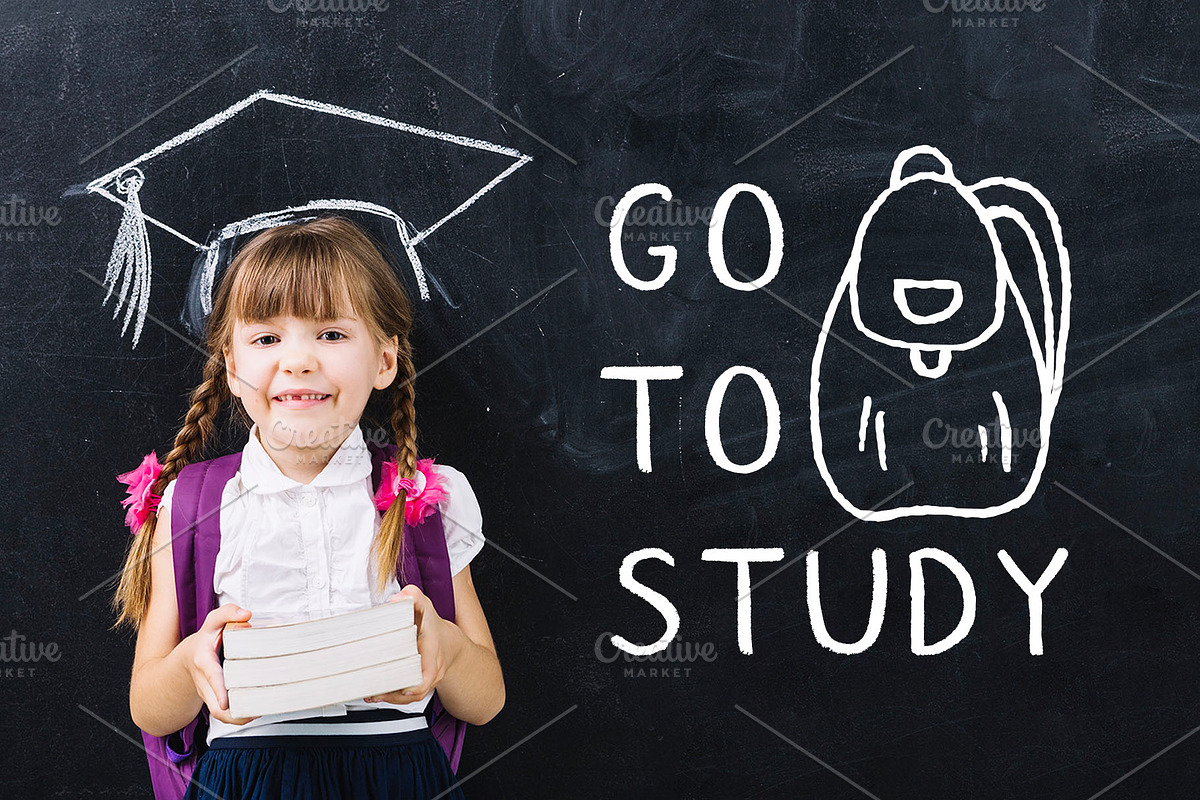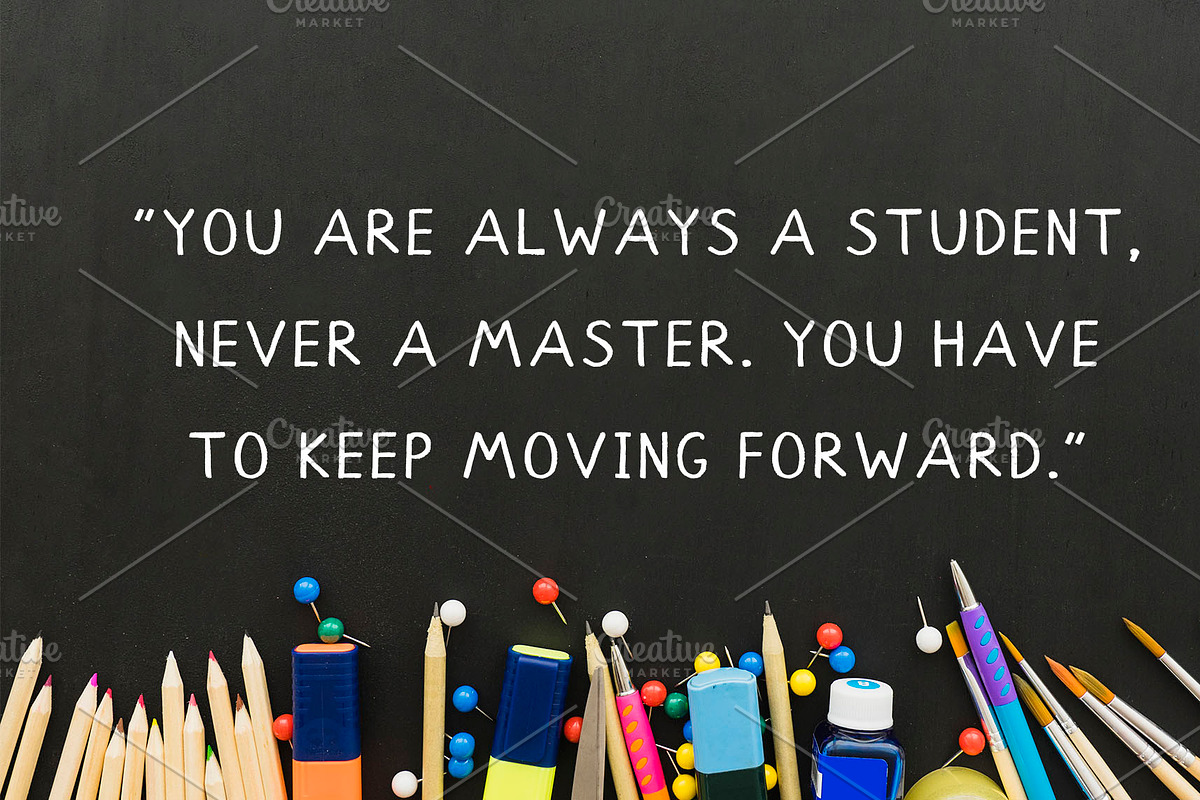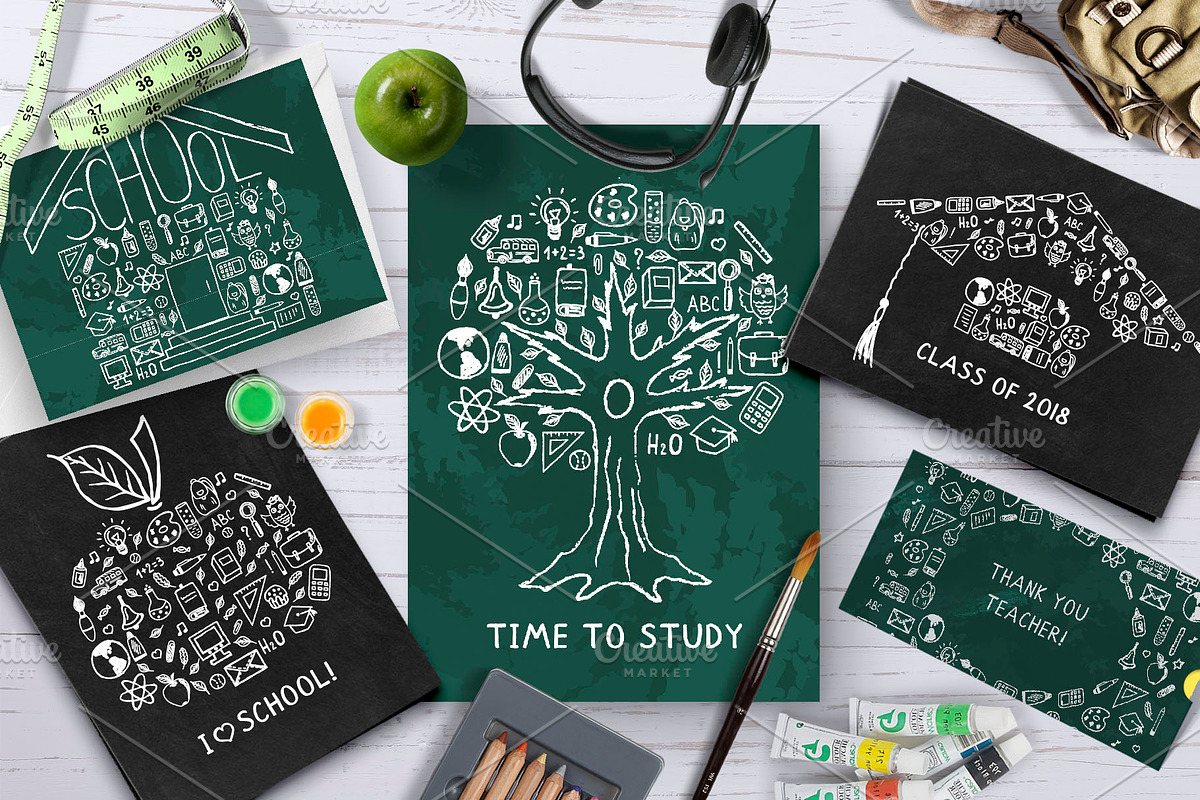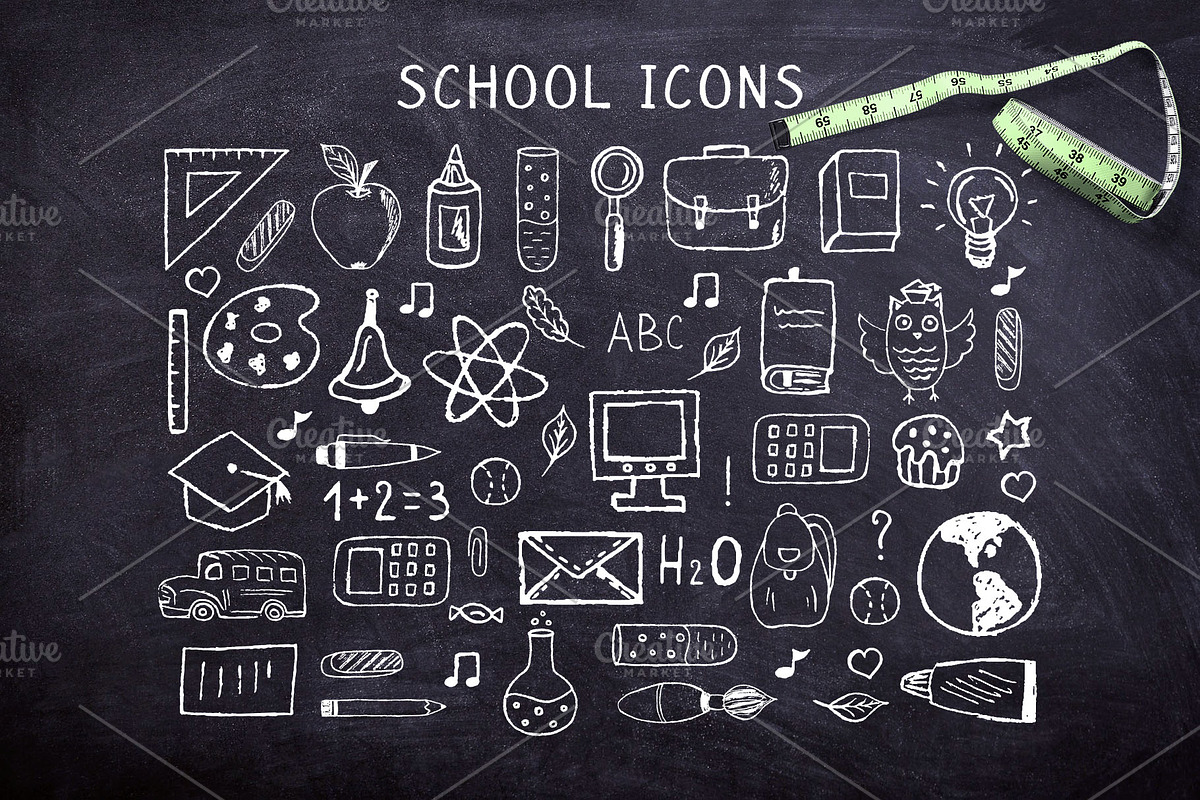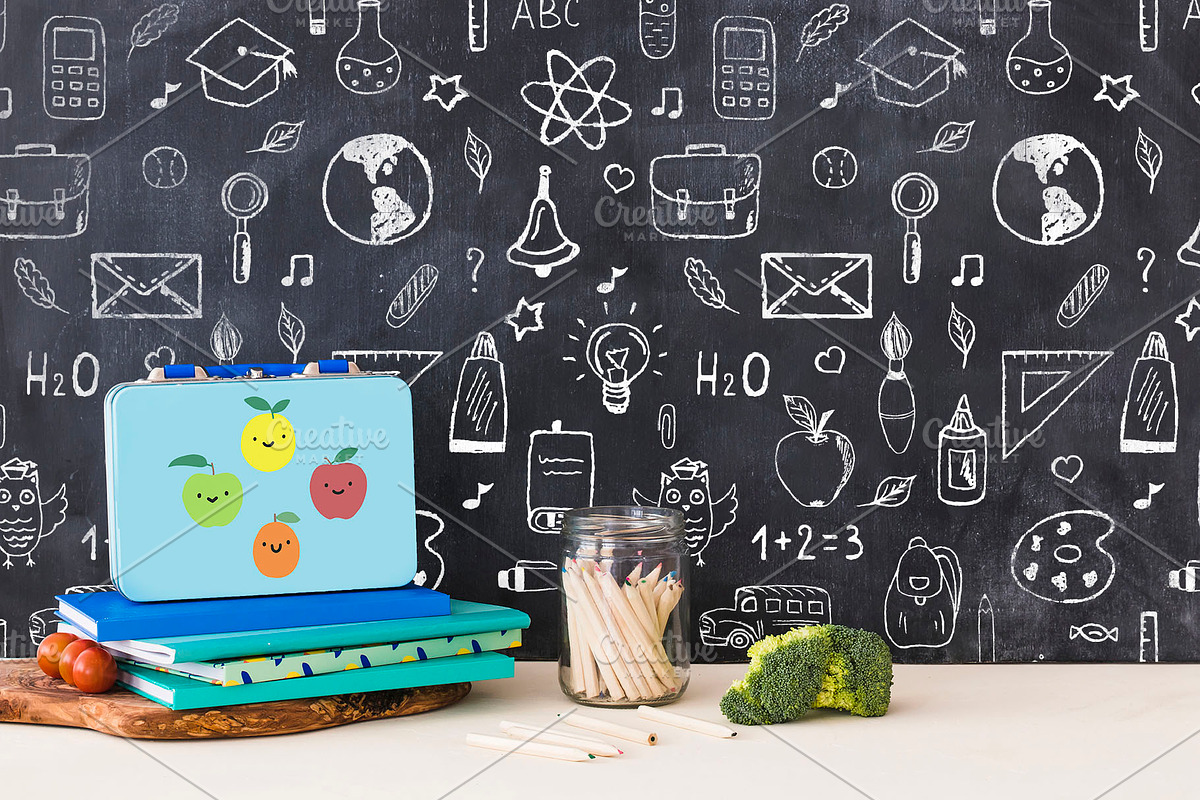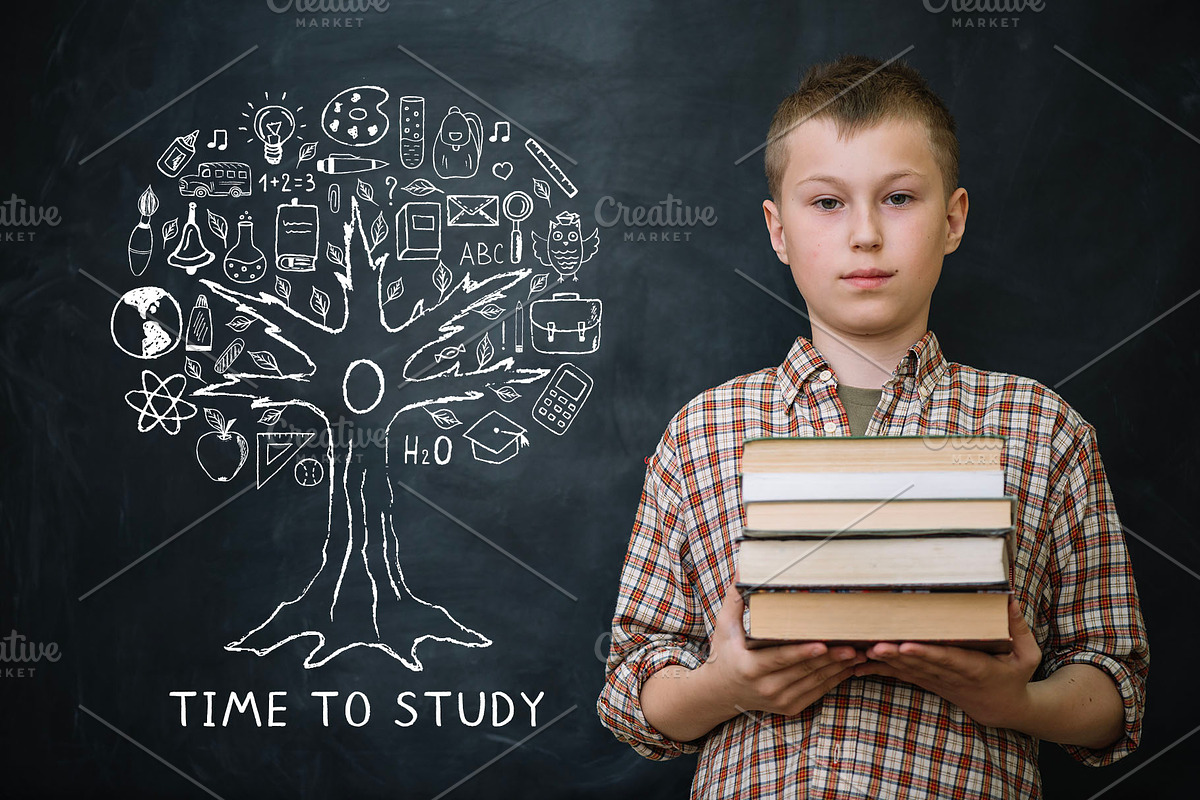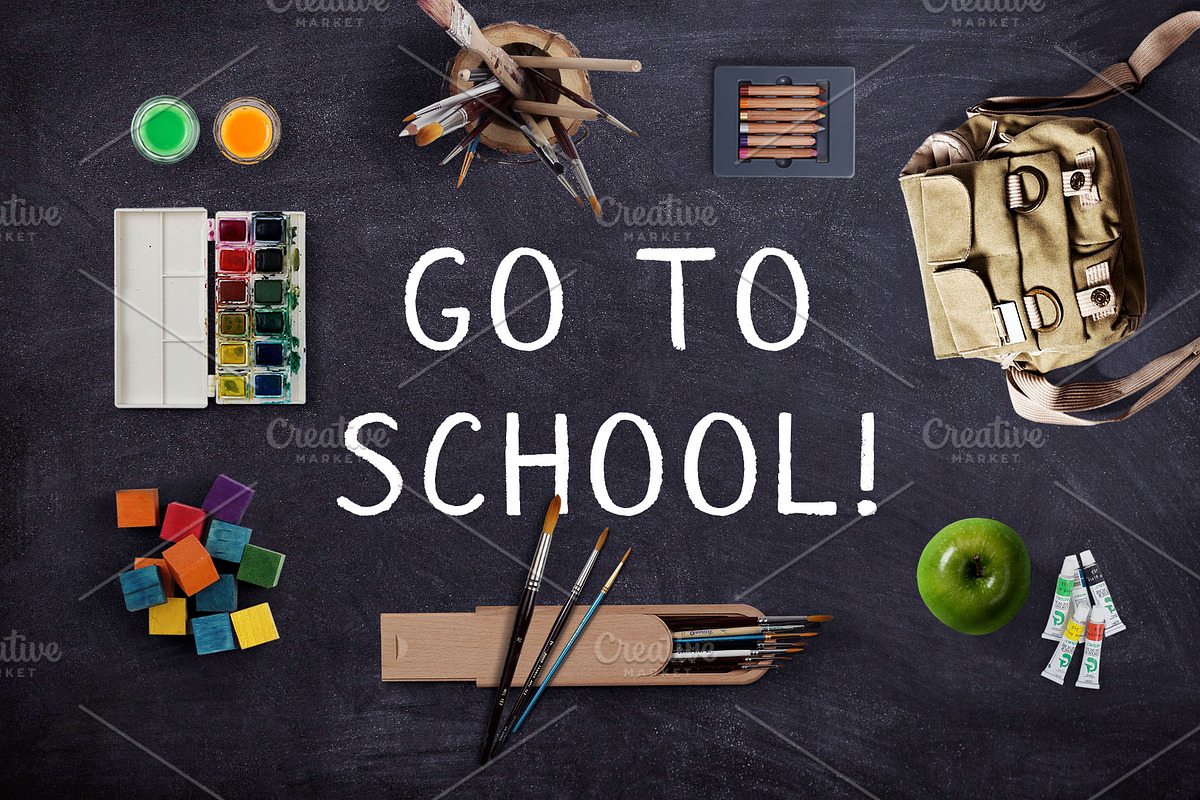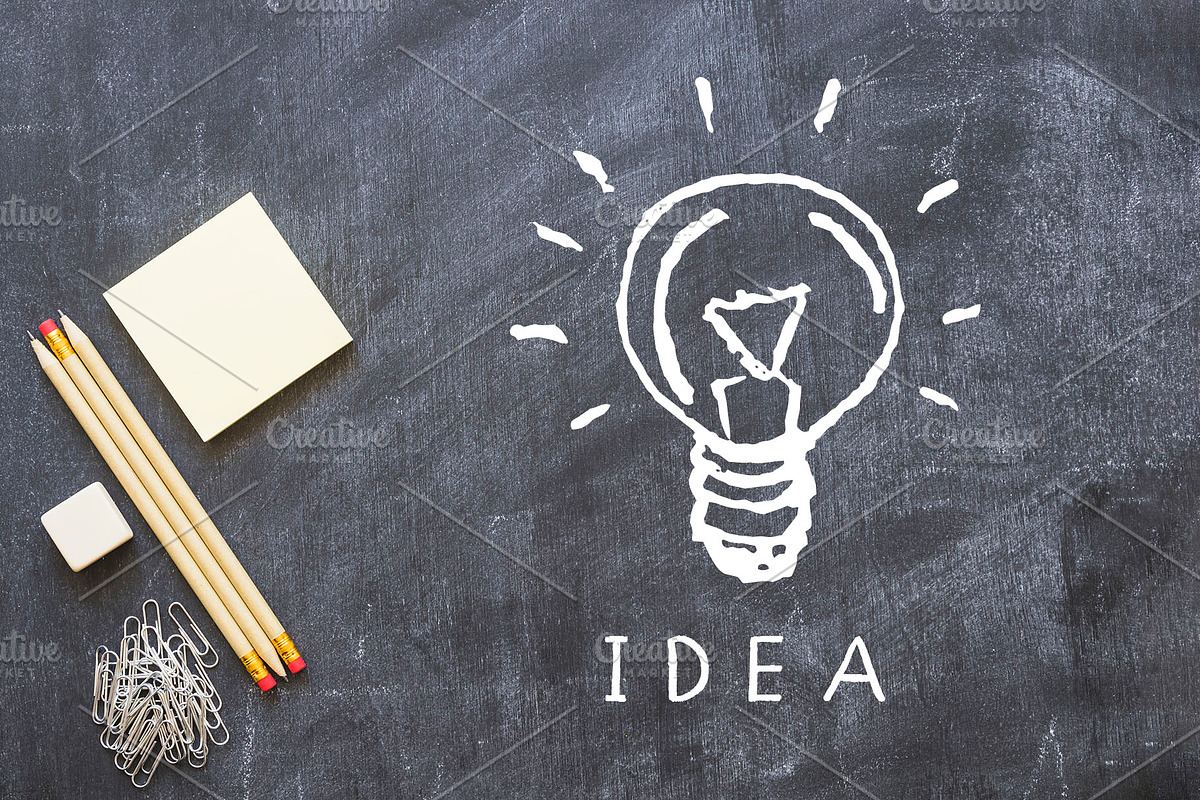
Chalk Font and School Pack
Introducing Chalk Font and School Pack
Chalk Font and School Pack by Nadezda fits naturally into Branding, posters, packaging, typography.